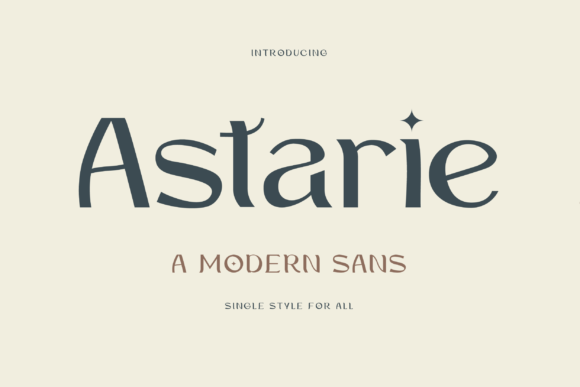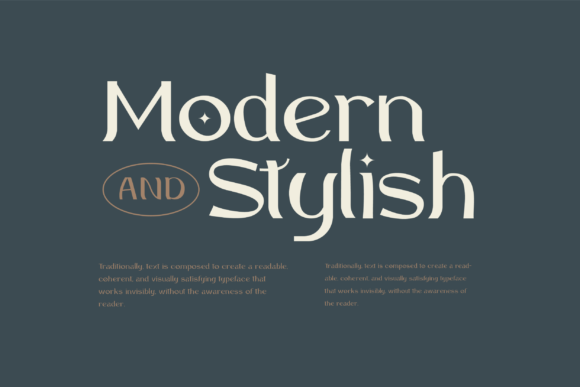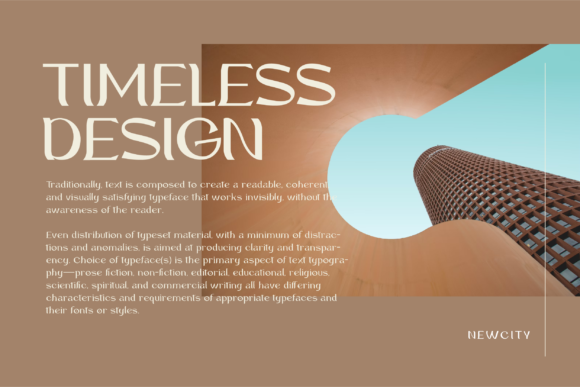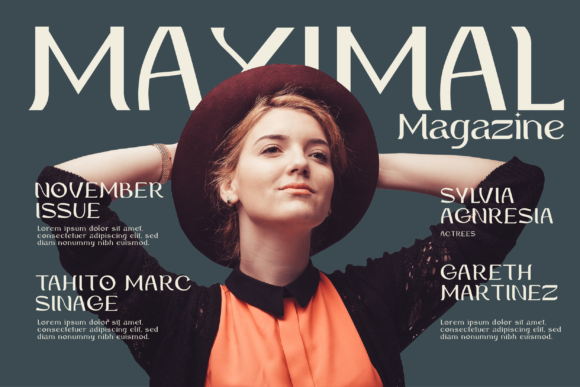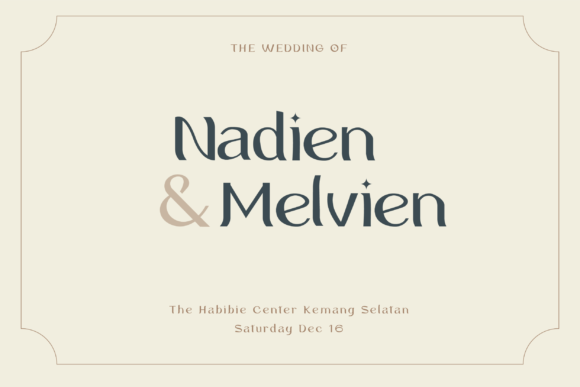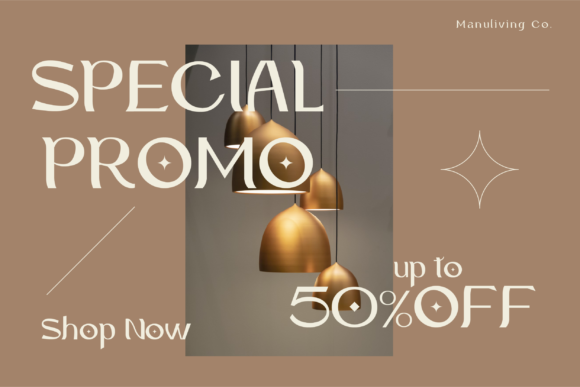
Astarie Font: Elevate Your Designs with a Modern Display Font
In the world of design, fonts play a crucial role in conveying the message and aesthetic of a project. Whether you’re a professional designer or a crafty DIY enthusiast, finding the right font can make all the difference. If you’re looking for a modern display font that adds a trendy touch to your designs, look no further than Astarie Font. In this article, we’ll dive into the features and benefits of Astarie Font, and explore how it can elevate your posters, covers, logos, and more.
What is Astarie Font?
Astarie Font is a modern display font designed to add a touch of sophistication and style to your designs. With its trendy and not stiff style, Astarie Font is perfect for designers and crafters who want to create stunning and eye-catching visuals. This font is ideal for use in posters, covers, logos, headlines, titles, and minimal layouts, making it a versatile addition to your font collection.
Key Features of Astarie Font
- Modern and Trendy: Astarie Font boasts a modern and trendy design that’s perfect for creating visually appealing designs.
- Not Stiff: Unlike other display fonts, Astarie Font has a relaxed and approachable feel that makes it perfect for a wide range of design applications.
- Highly Versatile: Astarie Font can be used in a variety of design projects, from posters and covers to logos and headlines.
- Easy to Read: Despite its stylish design, Astarie Font is easy to read, making it perfect for use in titles, headings, and other display text.
Benefits of Using Astarie Font
So why choose Astarie Font for your design projects? Here are just a few benefits of using this amazing font:
- Adds Visual Interest: Astarie Font adds a touch of visual interest to your designs, making them more engaging and attention-grabbing.
- Enhances Brand Identity: With its unique and stylish design, Astarie Font can help enhance your brand identity and make your designs more recognizable.
- Perfect for Minimal Layouts: Astarie Font is ideal for use in minimal layouts, where its clean and simple design can really shine.
- Great for Headlines and Titles: Astarie Font is perfect for use in headlines and titles, where its bold and eye-catching design can really make an impact.
How to Use Astarie Font in Your Designs
Using Astarie Font in your designs is easy. Here are a few tips to get you started:
- Pair with Other Fonts: Astarie Font pairs well with other fonts, so feel free to experiment with different combinations to find the perfect look for your design.
- Use in Headlines and Titles: Astarie Font is perfect for use in headlines and titles, where its bold and eye-catching design can really make an impact.
- Add to Logos and Branding: Astarie Font can add a touch of sophistication and style to your logos and branding, making them more recognizable and memorable.
In conclusion, Astarie Font is a modern display font that’s perfect for designers and crafters who want to add a touch of style and sophistication to their designs. With its trendy and not stiff style, Astarie Font is ideal for use in posters, covers, logos, headlines, titles, and minimal layouts. Whether you’re looking to enhance your brand identity, add visual interest to your designs, or simply create something stunning, Astarie Font is the perfect choice.